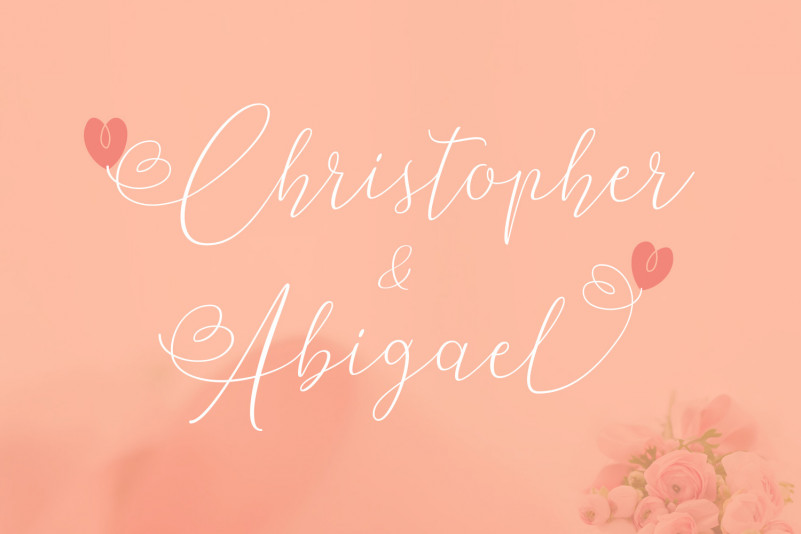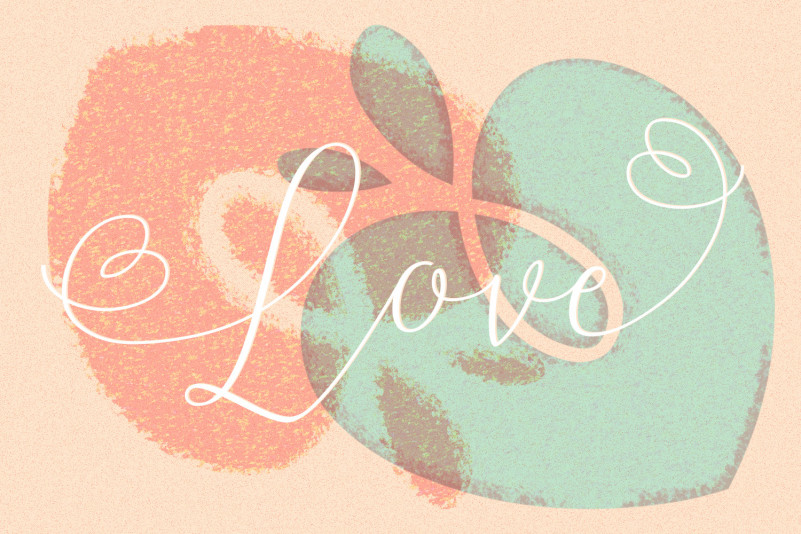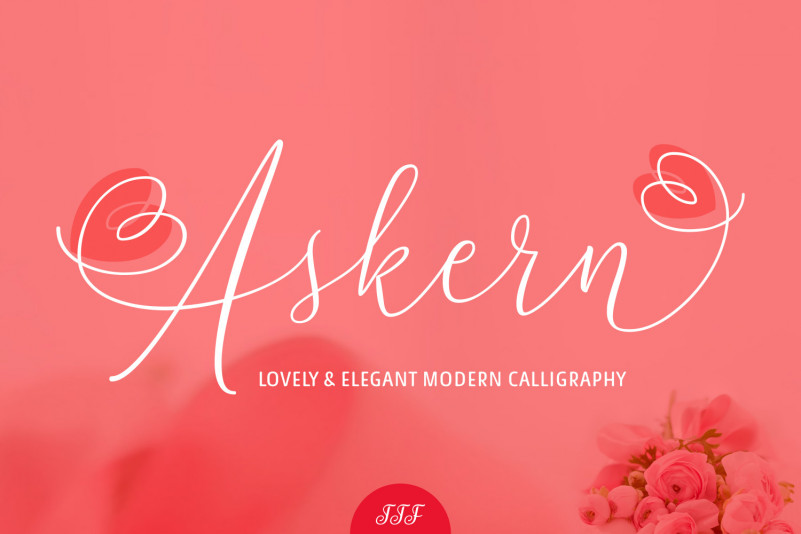
Askern Font
Askern is a beautiful and delicate script font, made with extreme femininity and elegance. Use to amplify the elegance in your projects, or use to add a delicate touch where necessary.